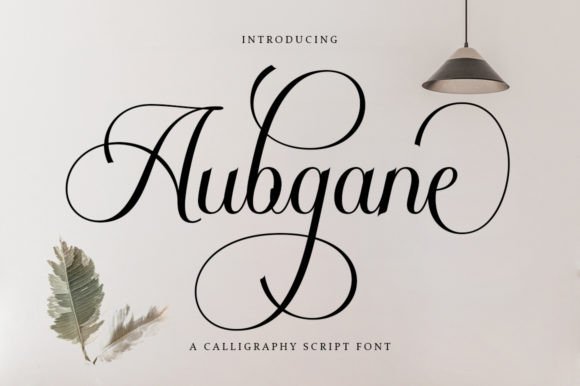
Aubgane Font: A Timeless Classy Script Font for Your Design Needs
In the world of typography, fonts play a crucial role in conveying the tone and personality of a design. Among the numerous font styles available, script fonts have always been a popular choice for designers seeking to add a touch of elegance and sophistication to their creations. One such font that has gained significant attention in recent times is the Aubgane Font. In this article, we’ll delve into the world of Aubgane, exploring its unique features, design inspiration, and uses.
What is Aubgane Font?
Aubgane is a classy script font that draws inspiration from the romantic era. Its unique design makes it an excellent choice for a wide range of design projects, from wedding invitations and branding materials to digital content and more. The font’s creator aimed to craft a typeface that exudes elegance, sophistication, and a touch of nostalgia, making it perfect for designers seeking to add a vintage flair to their work.
Design Inspiration
The Aubgane Font is deeply rooted in the romantic era, a period characterized by its ornate and elegant aesthetic. The font’s design takes cues from traditional calligraphy and script fonts of the time, with flowing lines, intricate details, and a sense of refinement. The result is a font that feels both classic and timeless, making it suitable for a variety of design applications.
Key Features of Aubgane Font
Aubgane boasts several key features that make it an attractive choice for designers:
- Unique and Elegant Design: Aubgane’s script font design is both unique and elegant, making it perfect for adding a touch of sophistication to your designs.
- PUA Encoding: Aubgane is PUA (Private Use Area) encoded, which means you can easily access all the glyphs and swashes, giving you greater flexibility and creative control.
- Pairs Well with Other Typography: Aubgane pairs perfectly with most typography, whether you’re using serif, sans serif, bold, or more subtle fonts.
Using Aubgane Font in Your Designs
Aubgane’s versatility makes it suitable for a wide range of design projects. Here are some ideas on how to use Aubgane effectively:
- Wedding Invitations and Stationery: Aubgane’s elegant design makes it perfect for wedding invitations, save-the-date cards, and other stationery.
- Branding and Packaging: Use Aubgane to create sophisticated brand identities, packaging, and labels that exude luxury and refinement.
- Digital Content: Aubgane can add a touch of elegance to your digital content, including blog posts, social media graphics, and website headers.
Benefits of Using Aubgane Font
There are several benefits to using Aubgane in your designs:
- Time-Saving: With Aubgane’s PUA encoding, you can quickly access all the glyphs and swashes, saving you time and effort in your design process.
- Consistency: Aubgane’s unique design ensures consistency across your designs, helping to establish a strong brand identity.
- Flexibility: Aubgane pairs well with a wide range of typography, giving you the flexibility to experiment with different font combinations.
In conclusion, Aubgane Font is a timeless and elegant script font that can elevate your designs to new heights. Its unique features, design inspiration, and versatility make it an excellent choice for a wide range of design projects. Whether you’re a seasoned designer or just starting out, Aubgane is sure to become a valuable addition to your font collection.
- What is Aubgane Font? Aubgane is a classy script font inspired by the romantic era.
- Is Aubgane Font PUA encoded? Yes, Aubgane is PUA encoded, making it easy to access all the glyphs and swashes.
- What type of projects is Aubgane suitable for? Aubgane is suitable for a wide range of design projects, including wedding invitations, branding materials, digital content, and more.